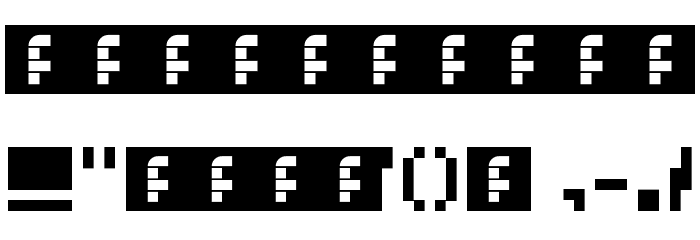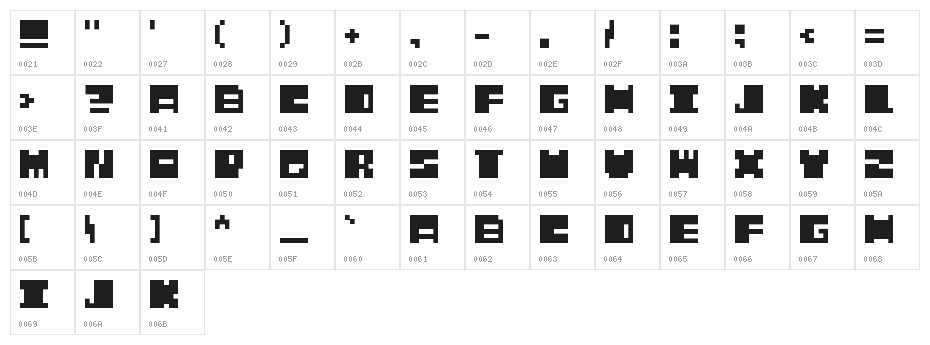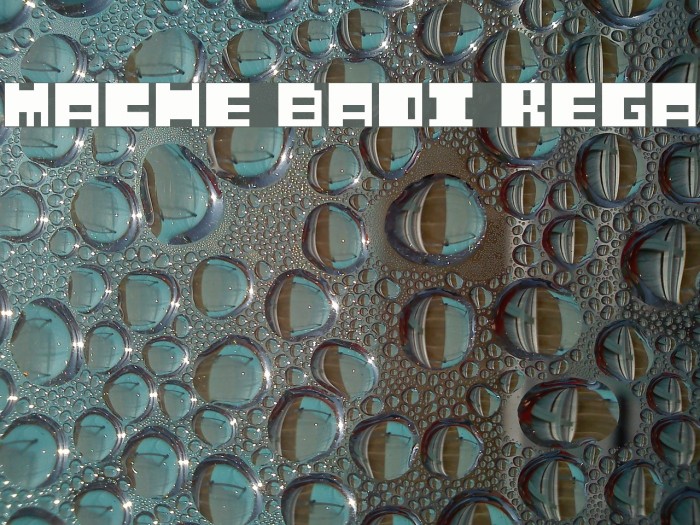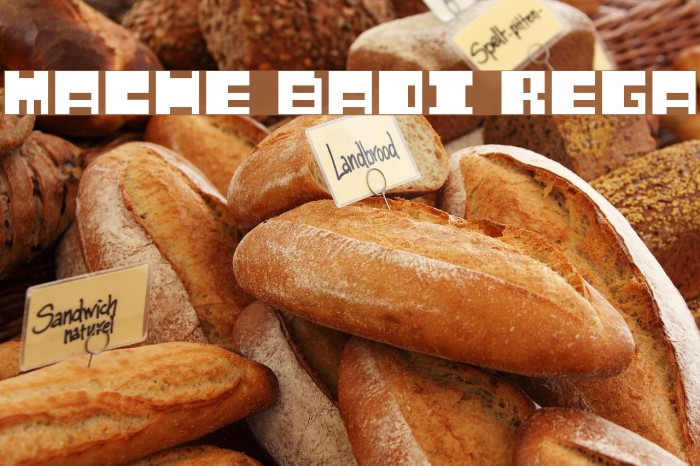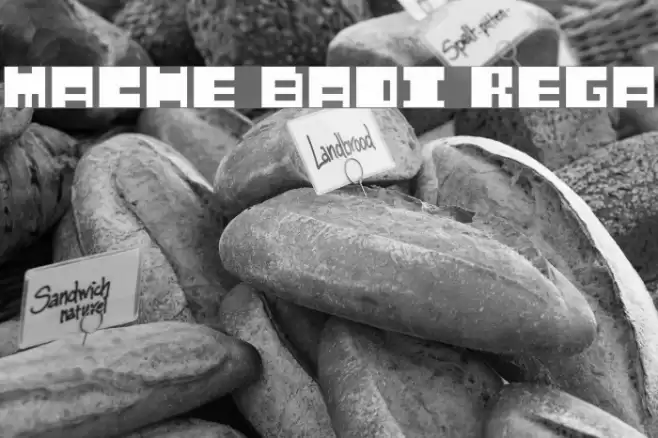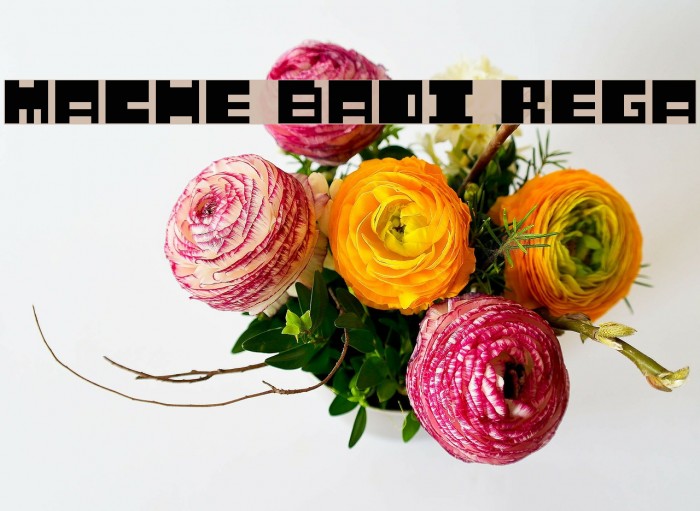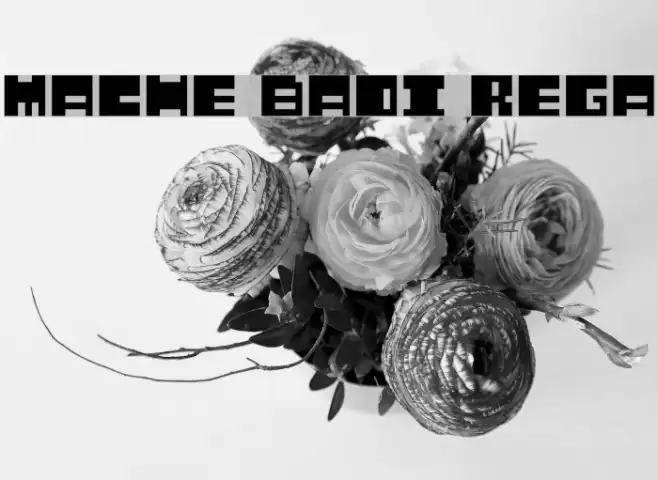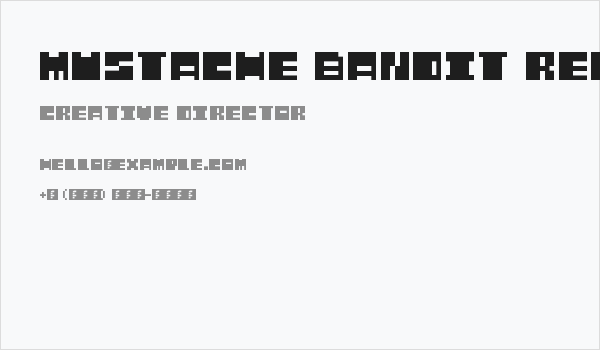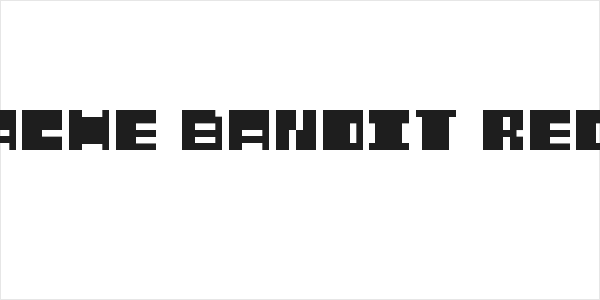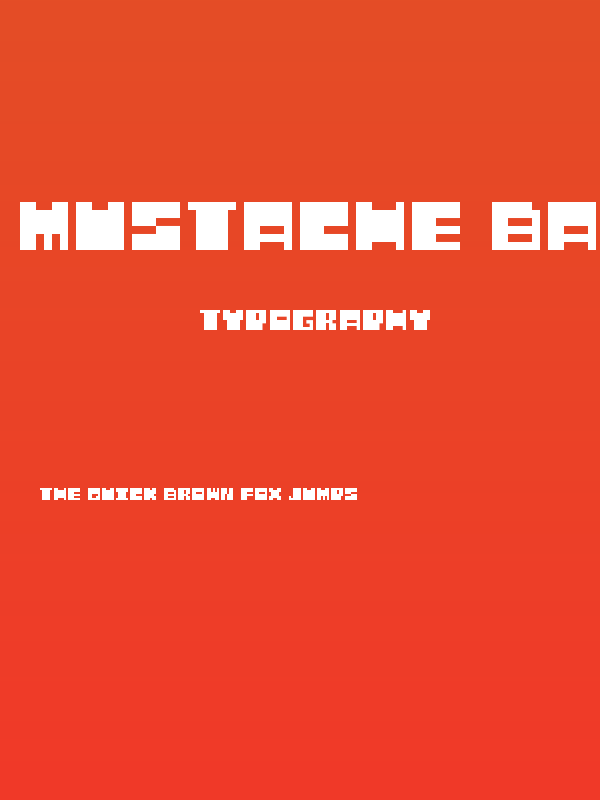
Mustache Bandit Regular Font
Mustache Bandit Regular Description
This font features a bold, blocky design with a distinctly geometric and pixelated appearance. Each character is constructed with sharp angles and straight lines, creating a modern and digital aesthetic. The uppercase and lowercase letters maintain a consistent style, with minimal differentiation in height, emphasizing uniformity. Numbers and special characters follow the same design principles, ensuring a cohesive look across all glyphs. The font's unique style is reminiscent of retro video games, making it ideal for projects that require a nostalgic or tech-inspired feel. Its strong visual impact makes it suitable for attention-grabbing headlines and titles.
| Overall Style | Modern, Retro |
| Proposed Projects | Ideal for video game titles, tech-themed posters, digital art, and retro-inspired branding. |